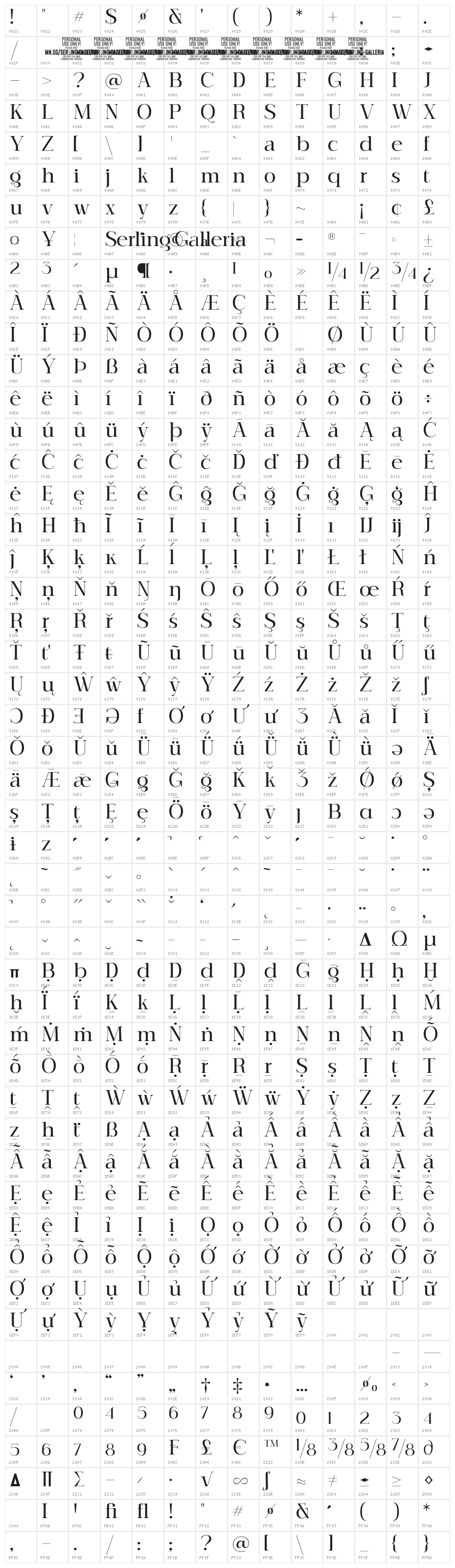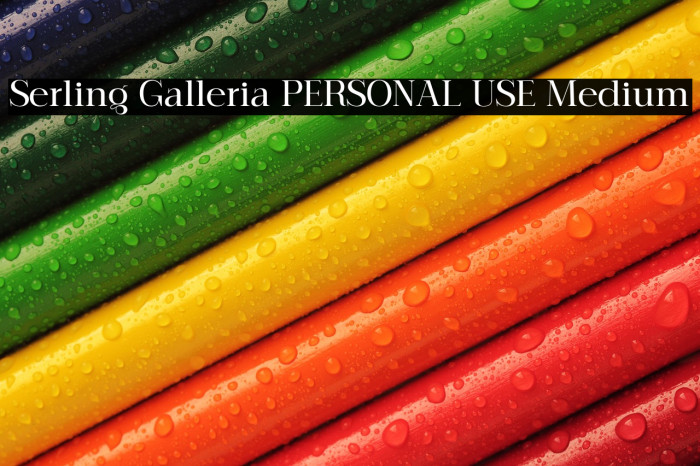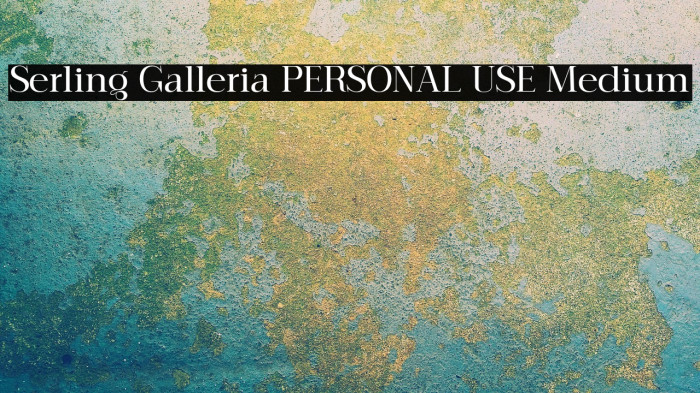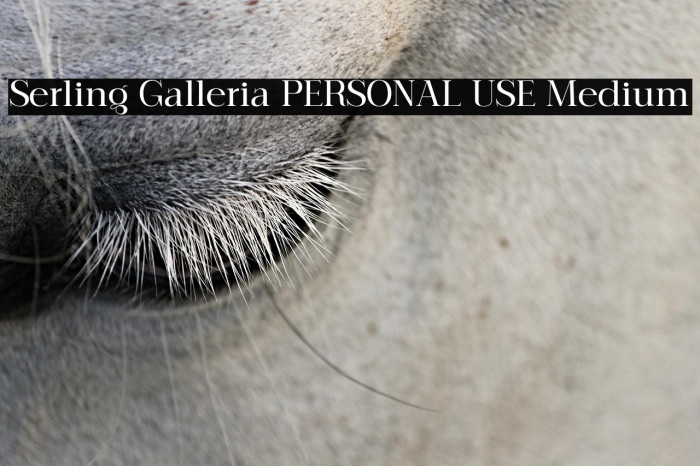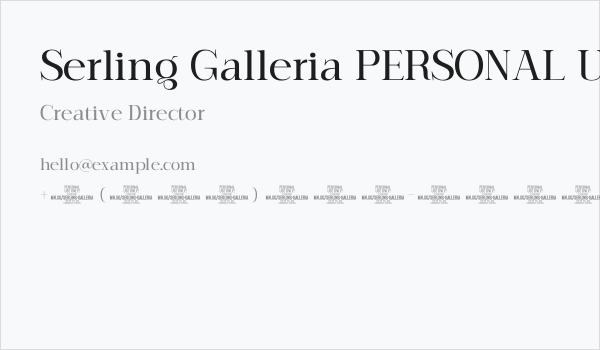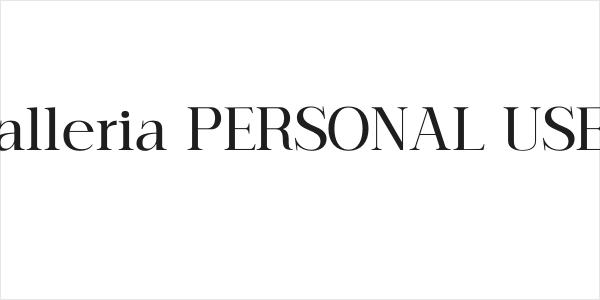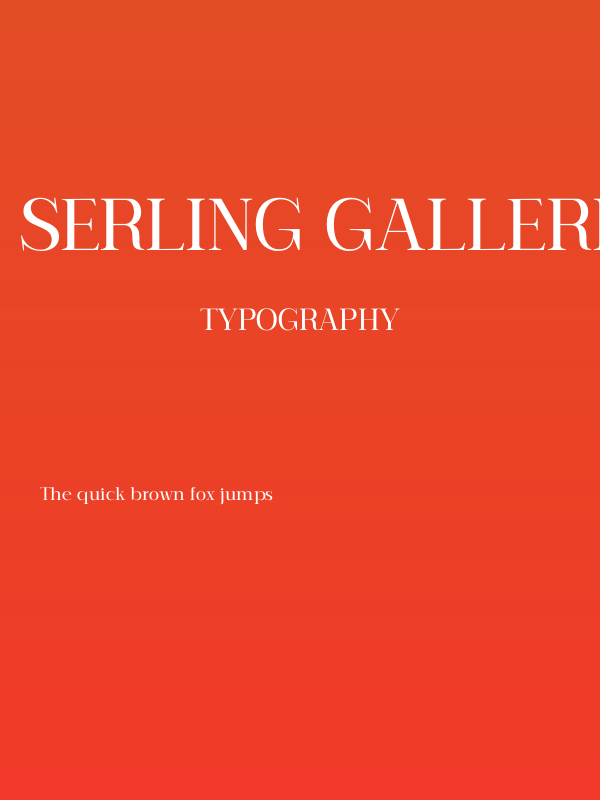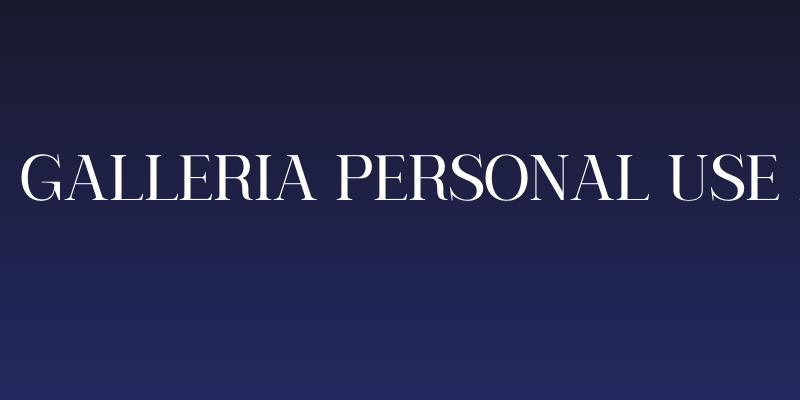
Serling Galleria PERSONAL USE Medium Font
Serling Galleria PERSONAL USE Medium Description
This font features a classic serif style with elegant, elongated strokes and a refined appearance. The uppercase letters are tall and commanding, while the lowercase letters maintain a balanced and harmonious look. The serifs are pronounced, adding a touch of sophistication and tradition. The numerals are consistent with the overall style, providing a cohesive look across all characters. Special characters are designed with the same attention to detail, ensuring versatility in various design contexts.
| Proposed Projects | Ideal for editorial design, book covers, formal invitations, and branding projects that require a touch of elegance and tradition. |